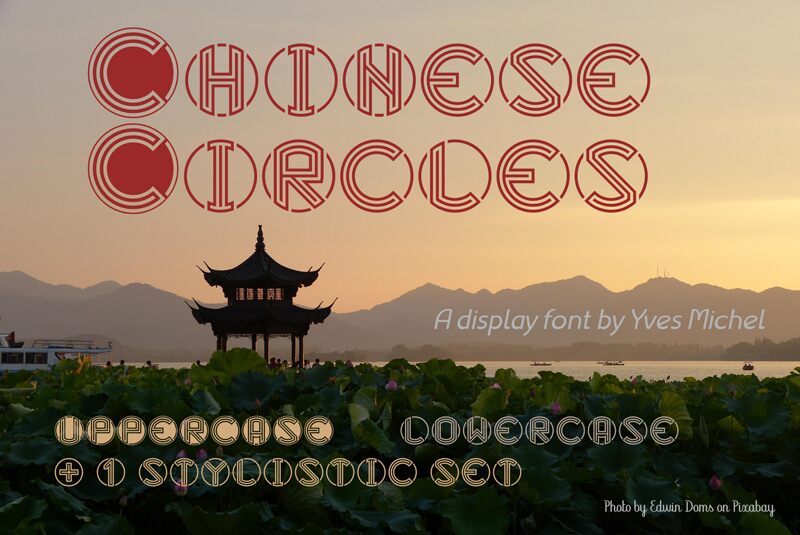
Chinese Circles font by Yves Michel is a free decorative typeface inspired by the artist’s country of origin and its rich culture. The design is a mix of serene, balanced, soft, and rounded shapes with a repeating pattern within each letter reflecting harmony and perfection. Thoughtful, detailed, wise, and spiritual are all characteristics of the Chinese culture, and those are maintained in this carefully thought-out set.
Use Chinese Circles font in websites dealing with Chinese cultures, history, and geographies, as well as websites about Zen, Yoga, and Feng Shui. Other options are religious, spiritual, and health magazines, titles, logos, packaging, and subliminal messages. The font also allows for creative graphic projects where you’d want to experience new artistic and linguistic concepts.
Inspired by Chinese circle symbols, this large display font includes uppercase and lowercase letters, numbers, symbols, and essential punctuation. A stylistic set is provided to modify the numbers, symbols, and punctuation into their black versions when needed, allowing for versatile design options.